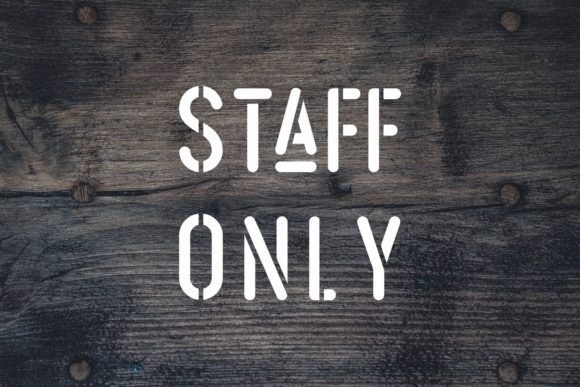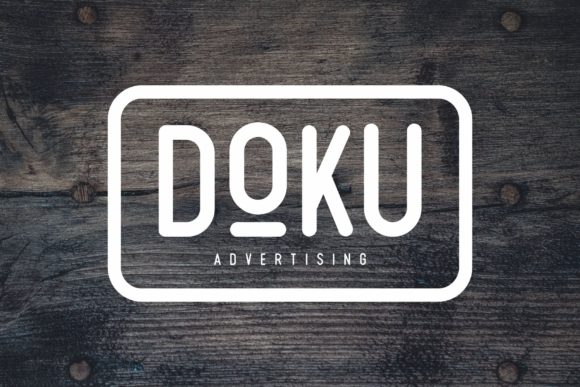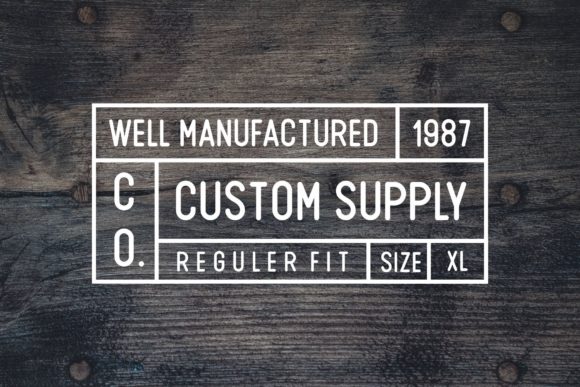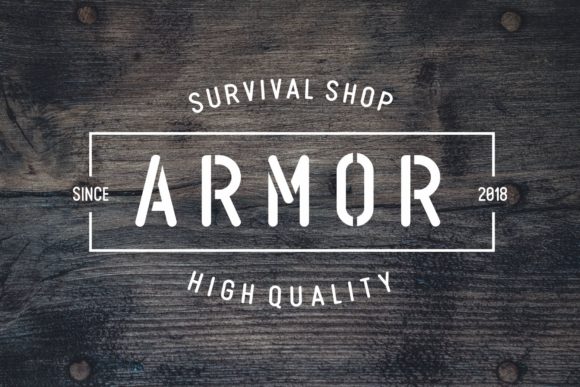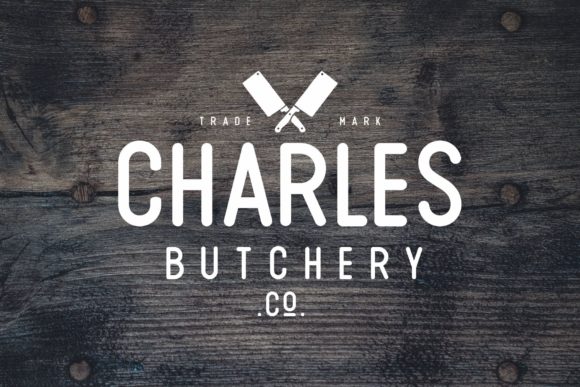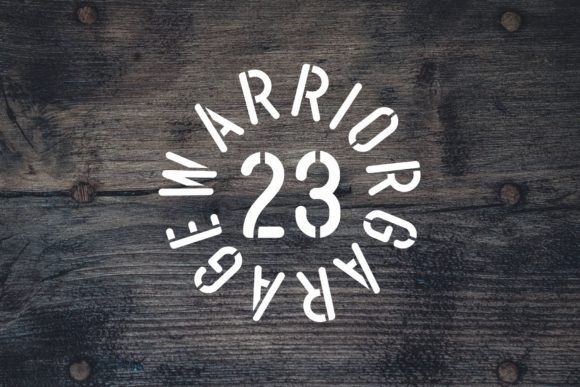
Gaman Font: Elevate Your Designs with a Friendly and Modern Sans Serif
In the world of typography, fonts play a crucial role in conveying messages, expressing emotions, and creating visual identities. For designers and crafters, finding the perfect font can be a daunting task, especially when looking for something that embodies both friendliness and modernity. This is where the Gaman Font comes into play, a sans serif font that has been making waves with its simple yet contemporary appeal.
The Essence of Gaman Font
Gaman Font is characterized by its clean lines, straightforward simplicity, and a touch of modern elegance. It’s a friendly and approachable typeface that manages to stay on-trend with current design preferences. The beauty of Gaman lies in its versatility; it’s suitable for a wide range of projects, from digital content and branding to crafting and personal DIY projects.
Key Features of Gaman Font
• Modern Sans Serif: Gaman’s sans serif design ensures that your text looks crisp and clear, perfect for both digital and print materials.
• Simple Style: The simplicity of Gaman makes it incredibly versatile. It can be used for headlines, body text, and everything in between.
• Contemporary Appeal: With its modern twist, Gaman adds a touch of sophistication to any project, making it stand out in a sea of more traditional typefaces.
• Friendliness: The rounded edges and open letterforms contribute to a friendly and inviting feel, perfect for brands and crafts that aim to appear approachable and welcoming.
Using Gaman Font in Design and Crafting Projects
The applications of Gaman Font are vast and varied. Here are a few ideas on how to incorporate it into your projects:
• Branding and Logo Design: Use Gaman to create a modern and memorable brand identity. Its friendly vibe makes it perfect for businesses that want to appear approachable and customer-focused.
• Digital Content: Enhance your website, blog, or social media graphics with Gaman. Its readability on digital screens makes it an excellent choice for online content.
• Crafting and DIY Projects
• Paper Crafts: Whether you’re making greeting cards, scrapbooking, or working on other paper crafts, Gaman can add a modern touch to your projects.
• Iron-on Designs: Create custom iron-on designs for t-shirts, tote bags, and more. Gaman’s clarity and simplicity ensure that your designs look great on various materials.
• Sign Making: For crafters who enjoy sign making, Gaman offers a professional look that’s easy to read, even from a distance.
Tips for Maximizing Gaman Font’s Potential
To get the most out of Gaman Font, consider the following tips:
• Experiment with Sizes: Gaman looks great in various sizes, from large headlines to smaller body text. Play around to find the perfect balance for your project.
• Pair it Wisely: Don’t be afraid to pair Gaman with other fonts to create contrast and hierarchy in your designs. Its simplicity makes it a great base for many font combinations.
• Customize: Depending on the project, consider slight adjustments to Gaman’s letterspacing, color, or weight to better suit your design needs.
Gaman Font stands out as a versatile, friendly, and modern sans serif typeface that’s perfect for a wide array of design and crafting projects. Its simplicity, combined with its contemporary appeal, makes it an excellent choice for designers and crafters looking to elevate their work. Whether you’re creating digital content, branding materials, or handmade crafts, Gaman Font offers a fresh and approachable aesthetic that’s sure to inspire.